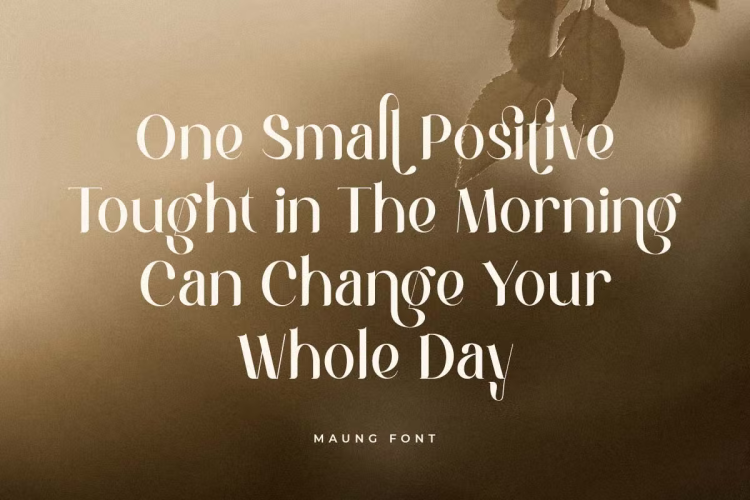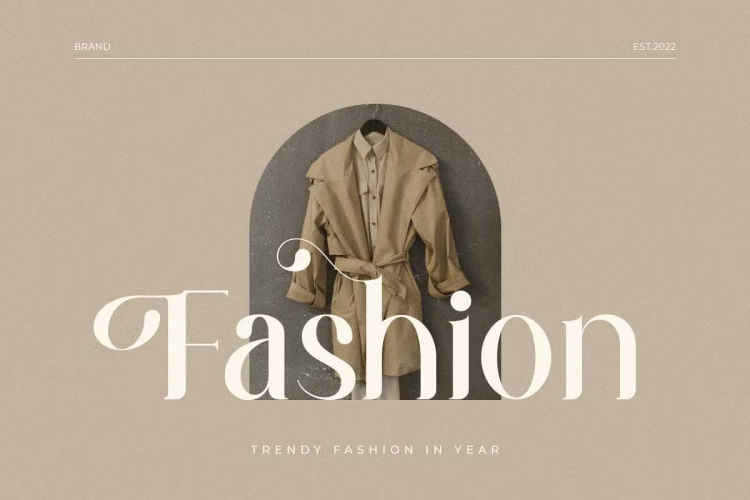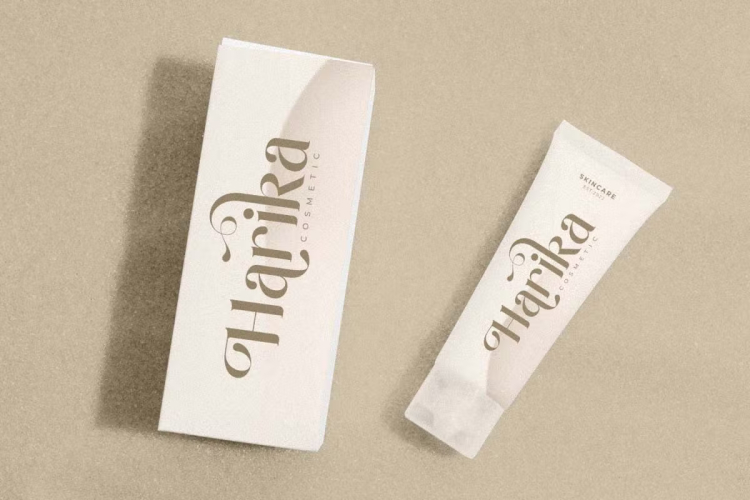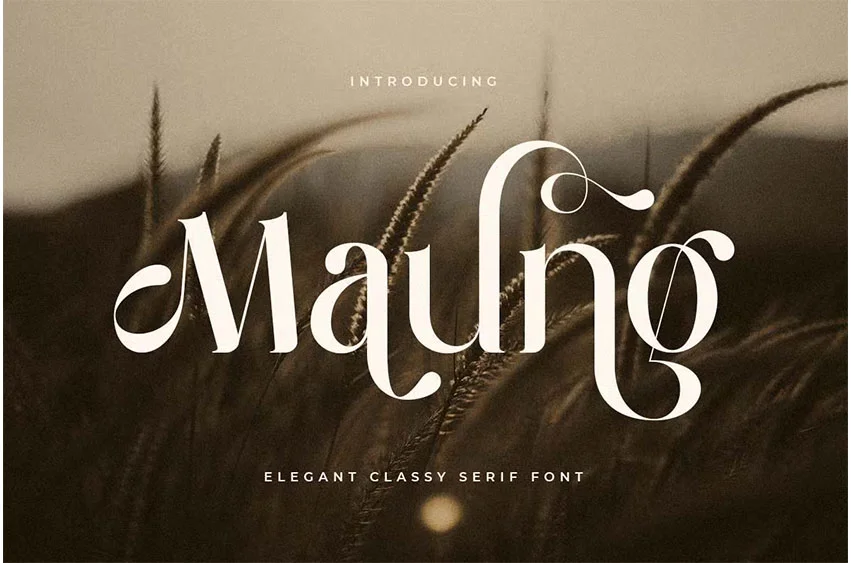
Maung Font
Maung Font that we created especially for elegant branding needs, with extra ligature and alternates in unique shape will be ready to add the value of your brand. It is so nice to leverage designers or product owners that need solutions to make their design look more classy and modern. We prepared any ligatures, and any alternate characters to help you create unlimited variations for your creative needs.
Where Maung Font works best
Fashion & beauty
High-contrast modern serifs like Maung Font define luxury fashion, cosmetics and editorial brands.
Wedding & lifestyle
Elegant serifs suit invitations, lifestyle blogs and photography portfolios.
Premium packaging
Use Maung Font for perfume, skincare and boutique packaging.
What is Maung Font good for?
Maung Font is a Modern Serif Font typeface tagged Branding, Creative, Elegant, Modern. It works well for headlines, logos, posters, social media graphics and branding projects that need a distinctive modern serif font look.